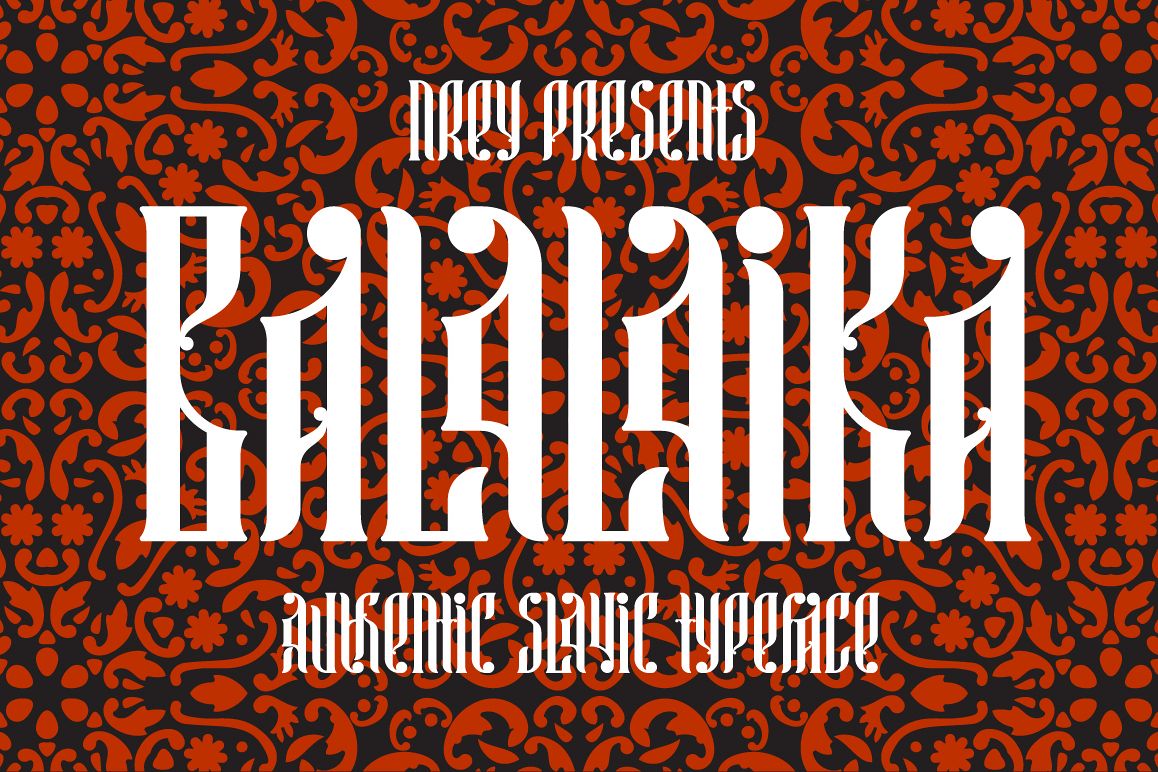
Balalaika
Hi, friends! Introducing new typeface - Balalaika. It is a new display font with cool characters. BALALAIKA Typeface was inspired by ethnic slavonic style which combining classic typography with awesome features bring classic touch on this culture. It works well with normal size text and for large displays or short words. You may combine uppercase and smallcase in the text body, as alternates symbols. The Balalaika typeface is suitable for : product packaging, labeling, logo, classic shop, ethnic shop, titles, etcBalalaika Features: